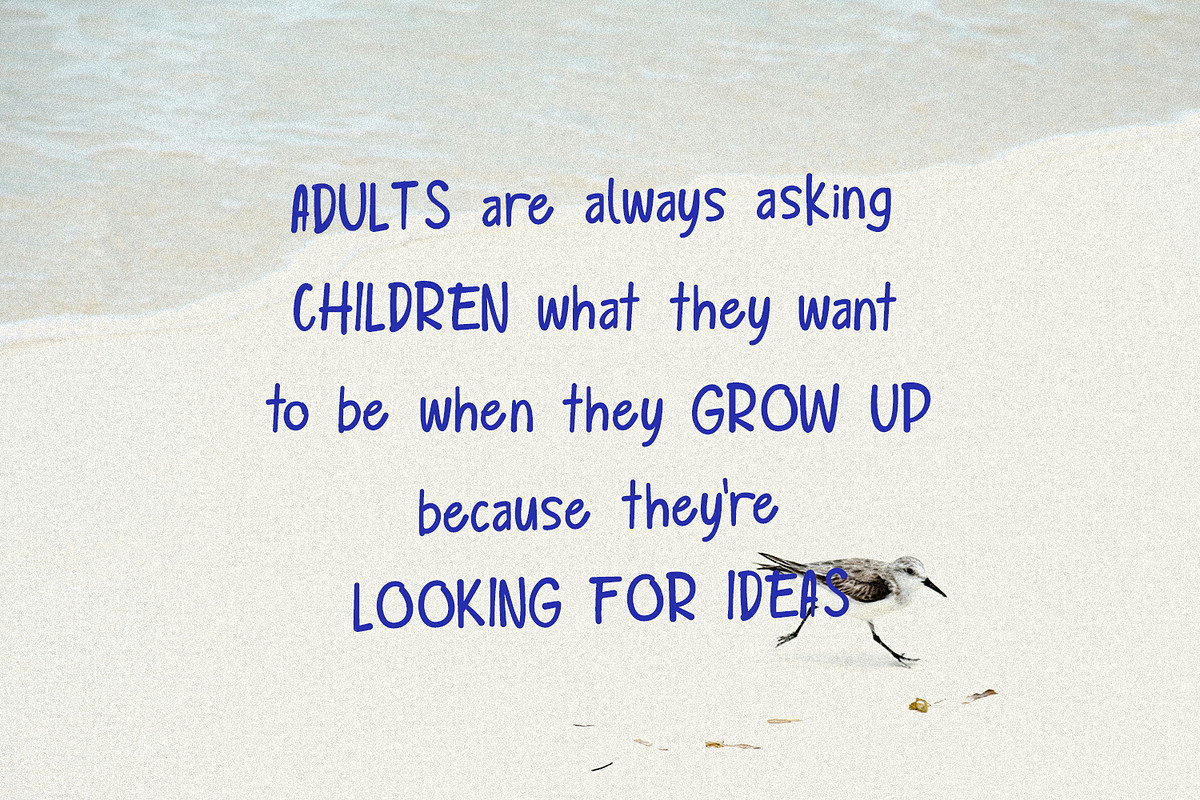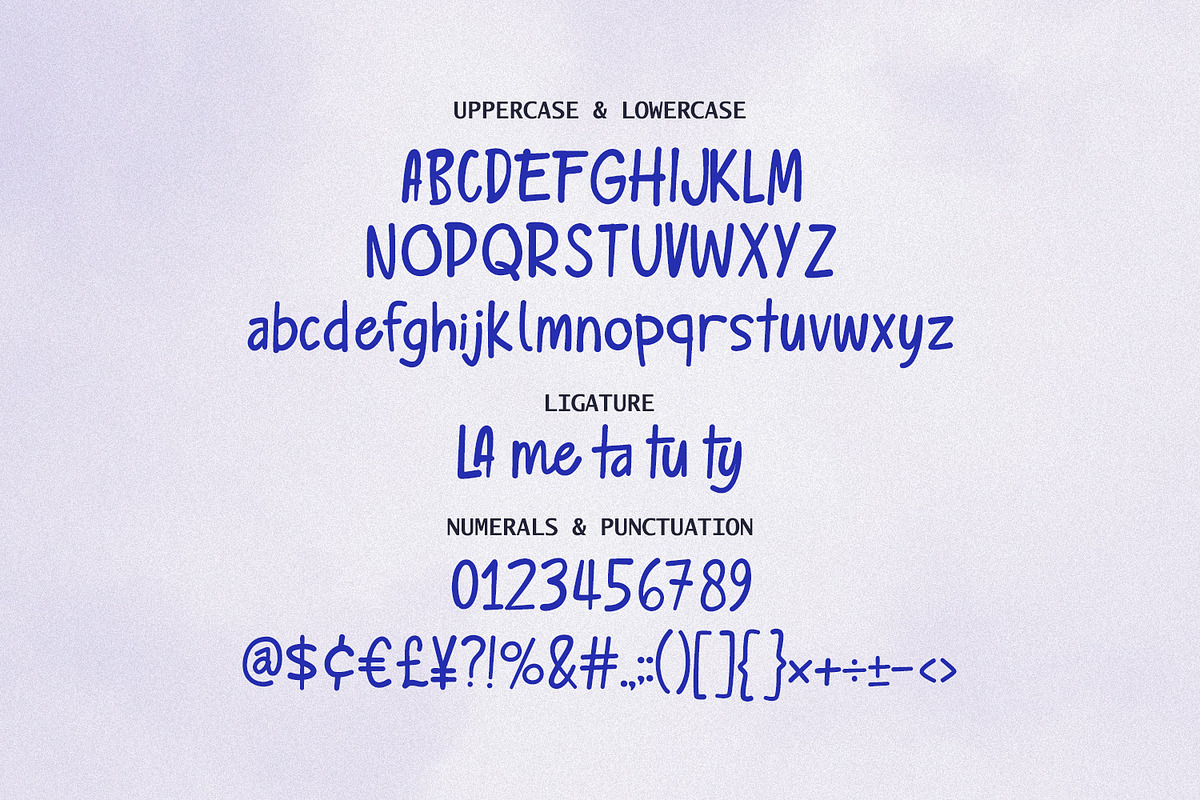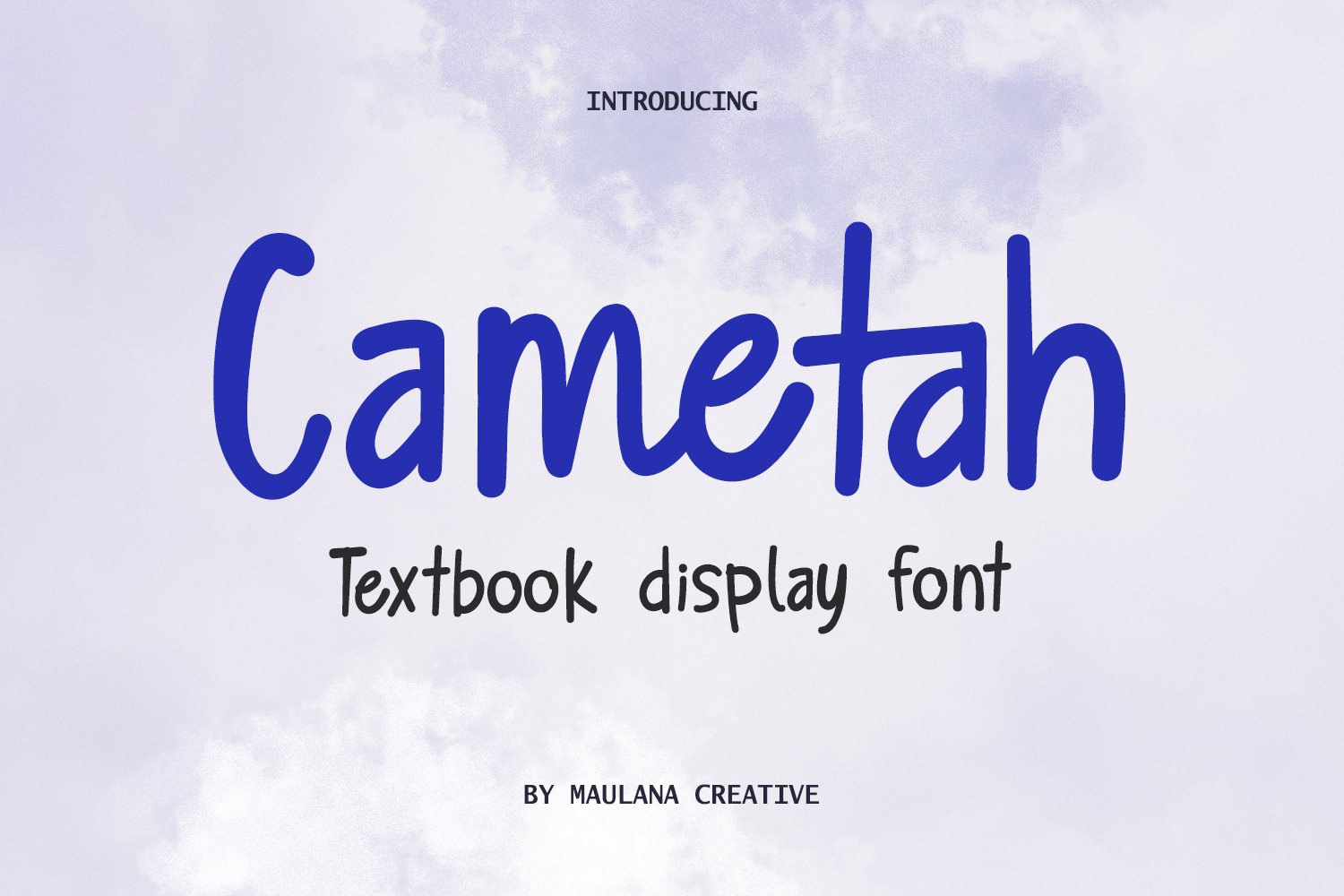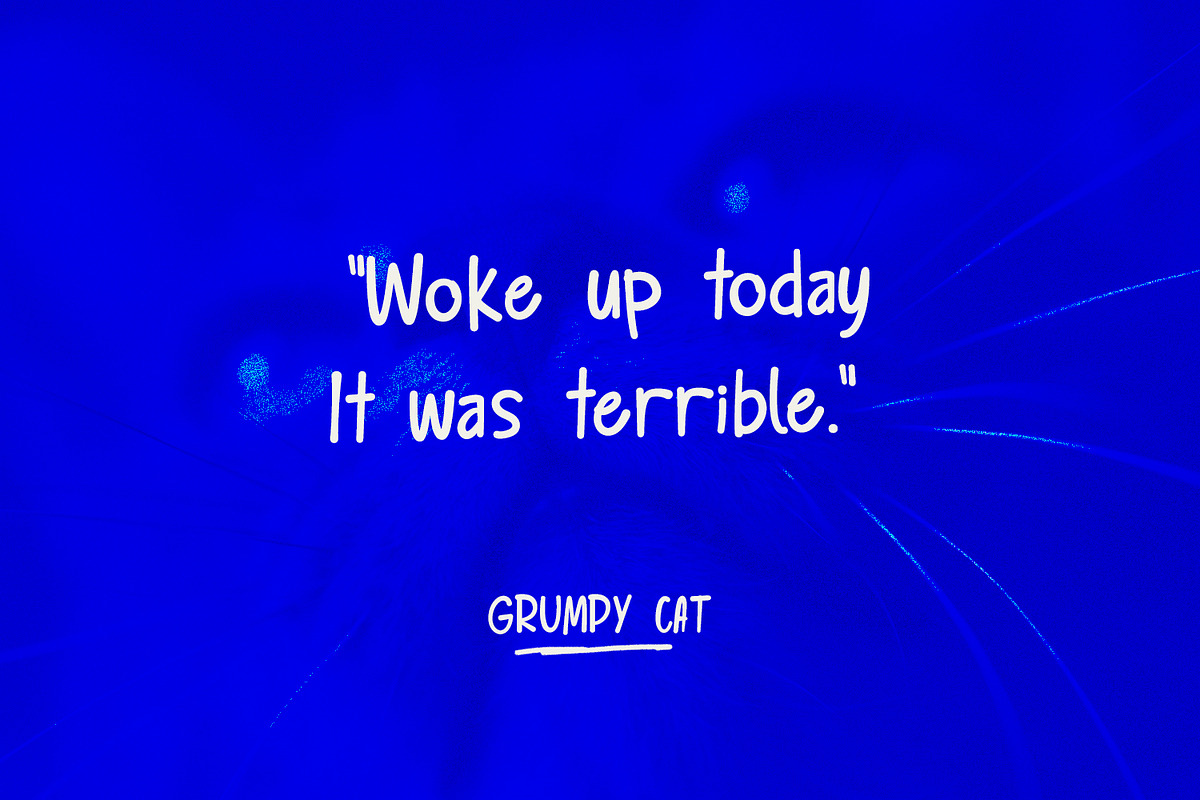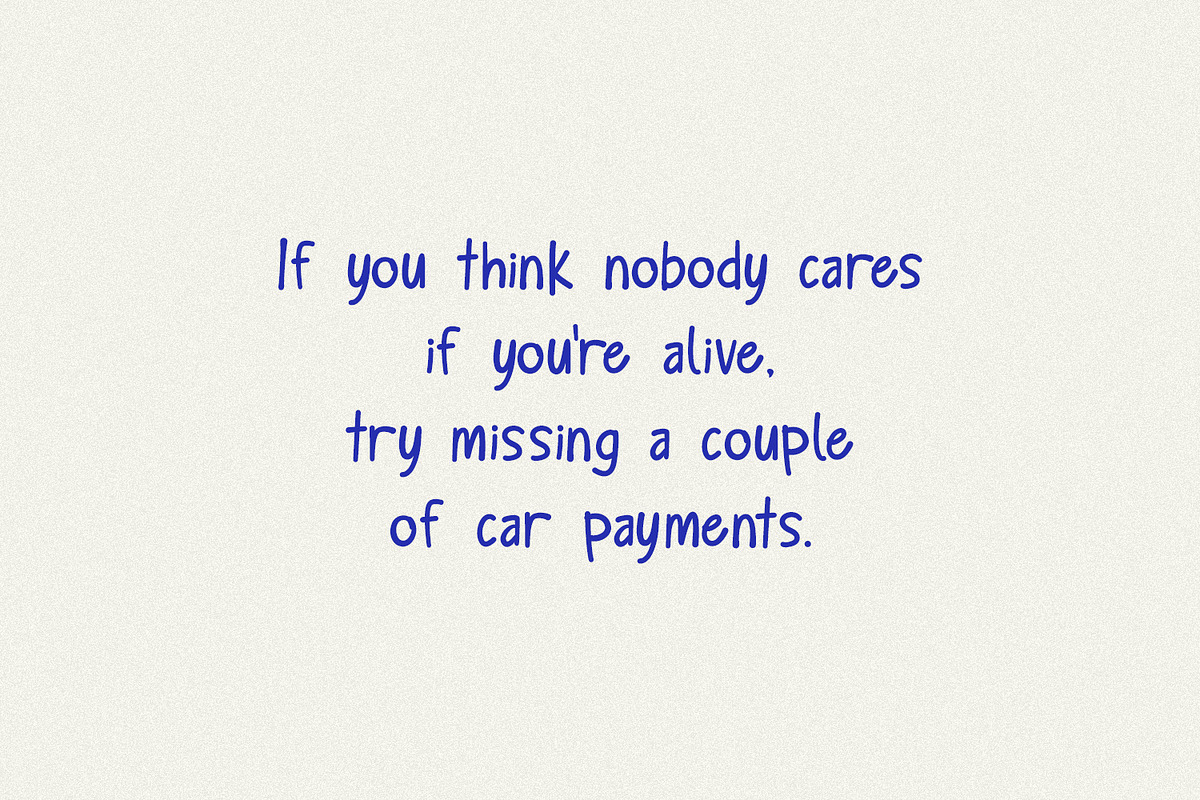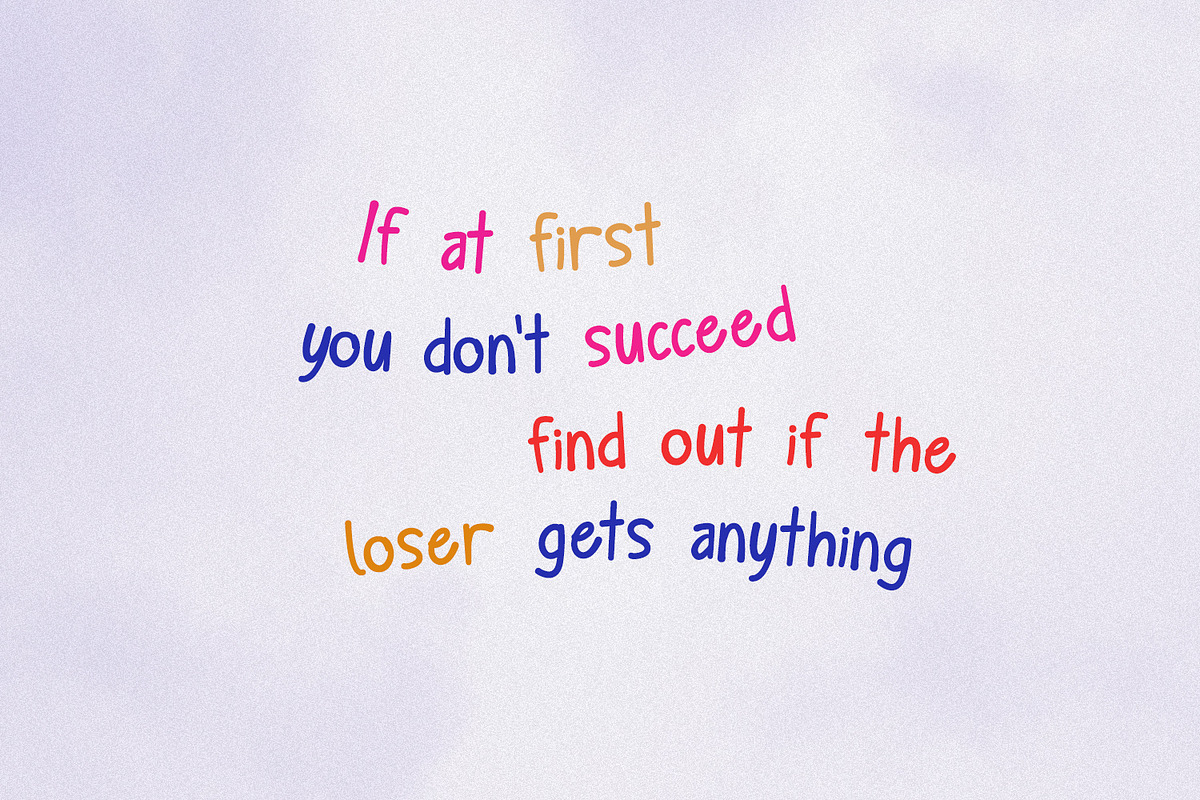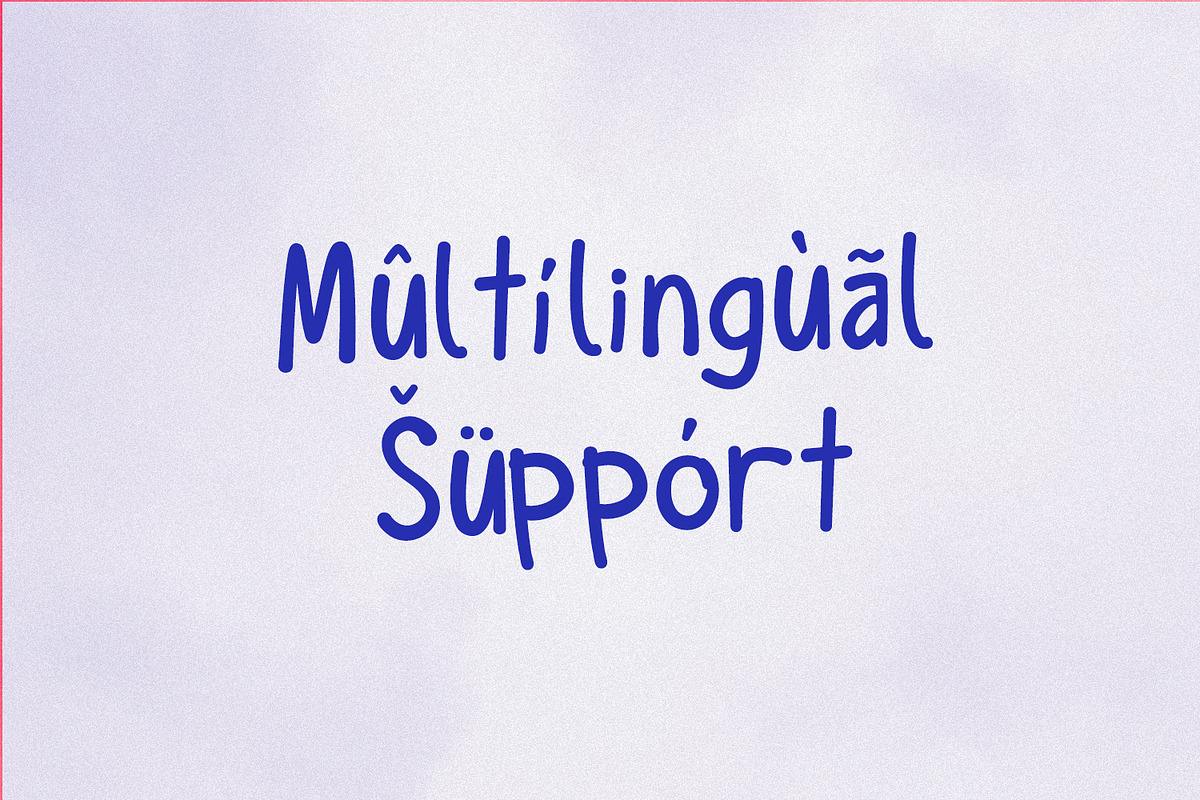
Cametah Textbook Display Font
Cametah is a authentic display handwritten font. With medium stroke, fun character with a bit of ligature. To give you an extra creative work. Cametah font support multilingual more than 100+ language. This font is good for logo design, Social media, Movie Titles, Books Titles, a short text even a long text letter and good for your secondary text font with sans or serif. Make a stunning work with Cametah font.